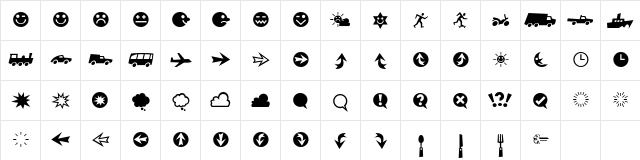
RiansDingbats Three Regular
Design Context for RiansDingbats Three Typeface
RiansDingbats Three takes a measured approach to typography — its balanced proportions and neutral character make it a reliable workhorse for both digital and print work.
Pro Tip: Use RiansDingbats Three in both headline and body roles to test its range before committing to a single application.